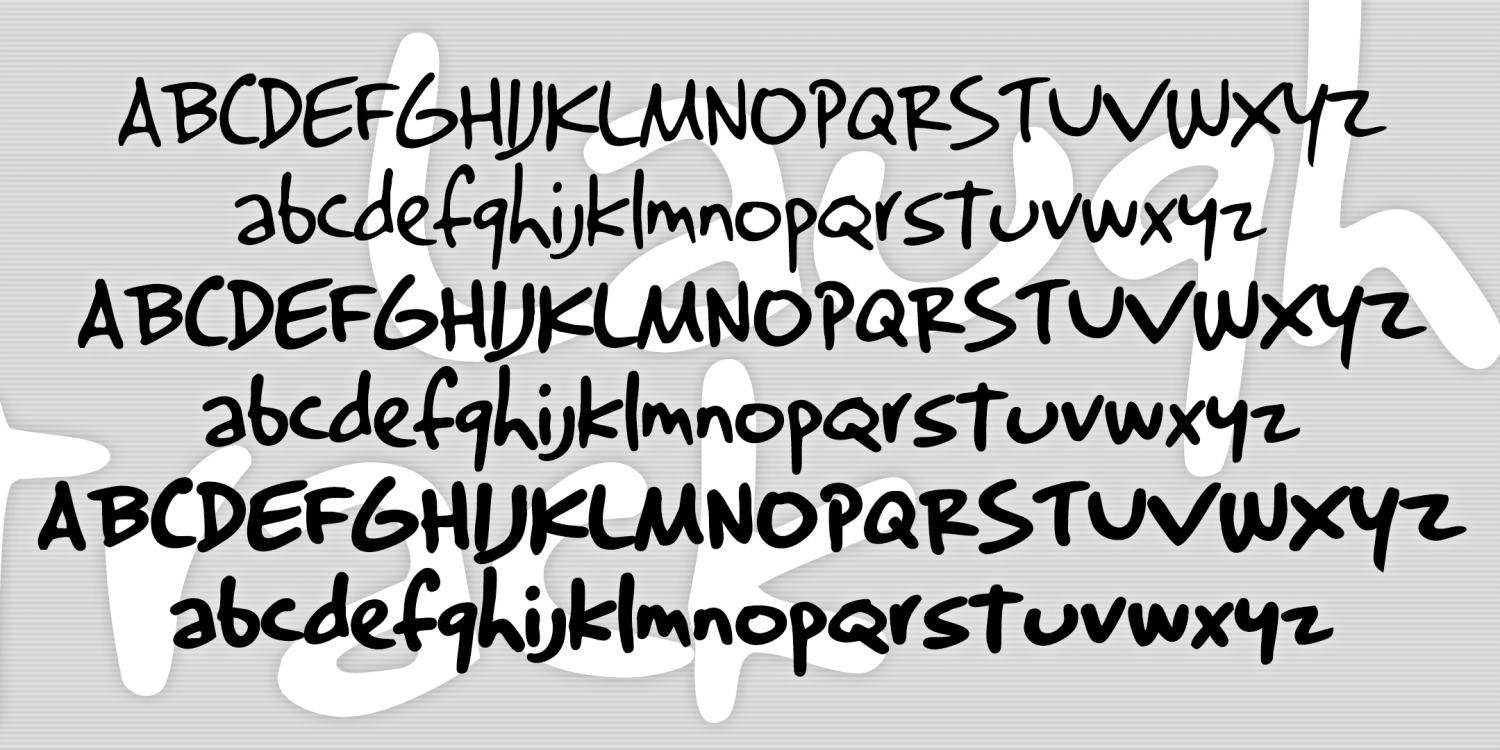
Laughtrack
About Laughtrack
LAUGHTRACK is a set of 3 fonts in a quirky, cartoon style that just says “funny”. Inspired by the work of Jerry Robinsson, whose "True Classroom Flubs and Fluffs"  was a highlight of the Sunday News comics section when I was…